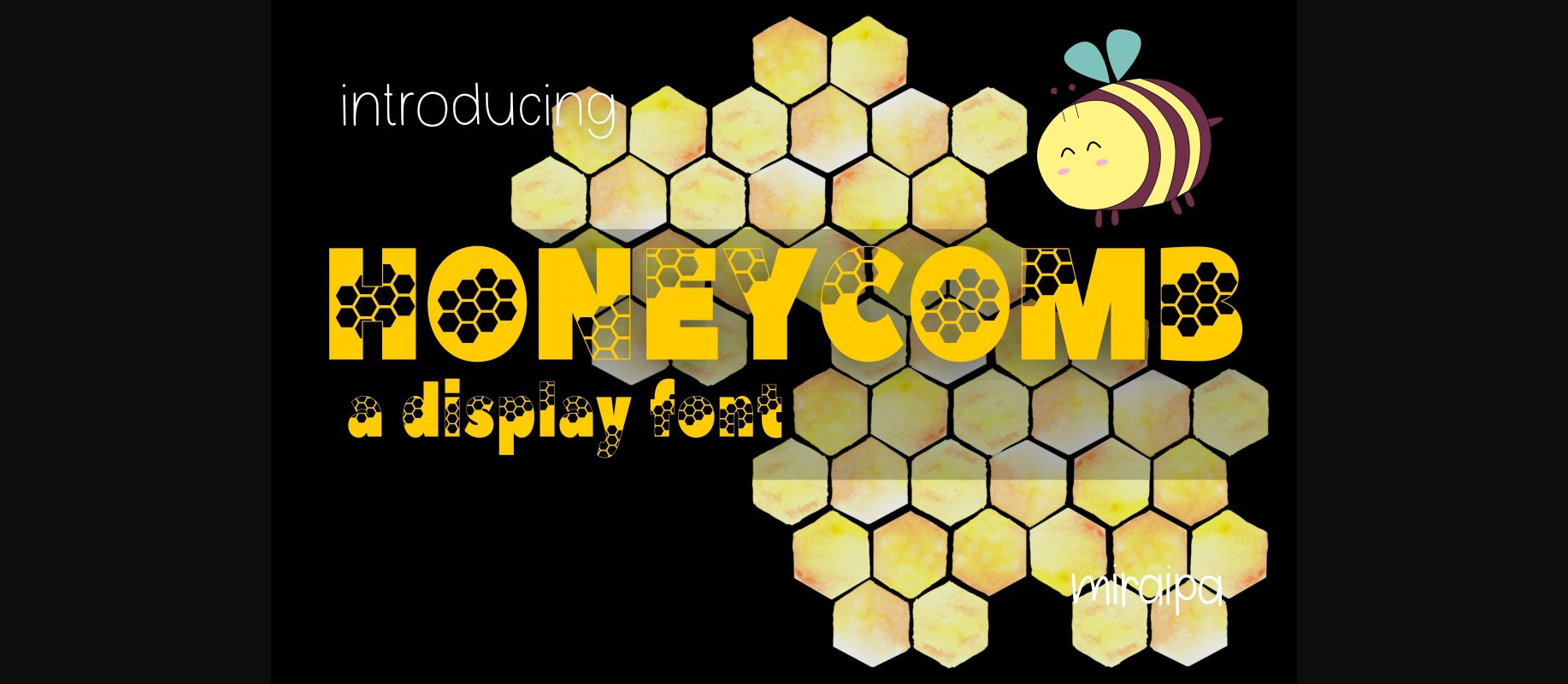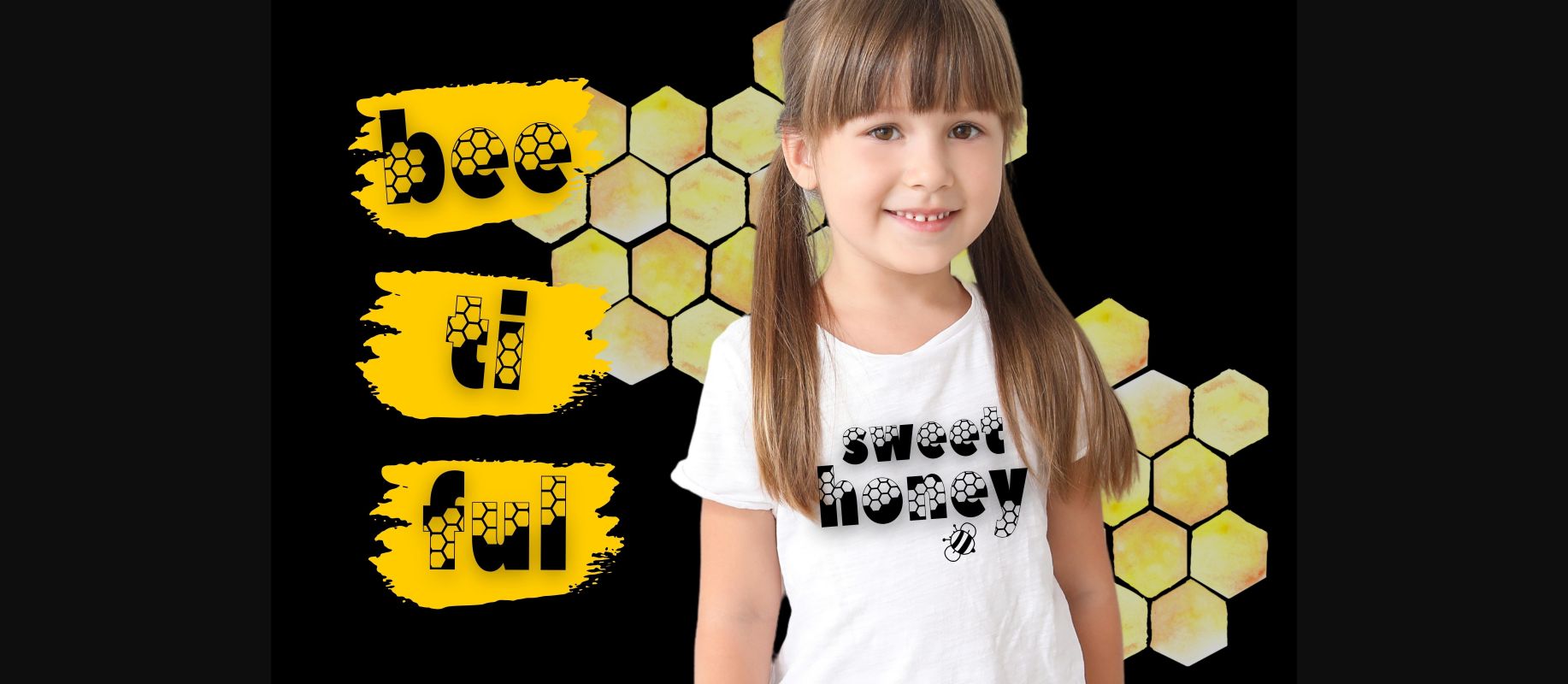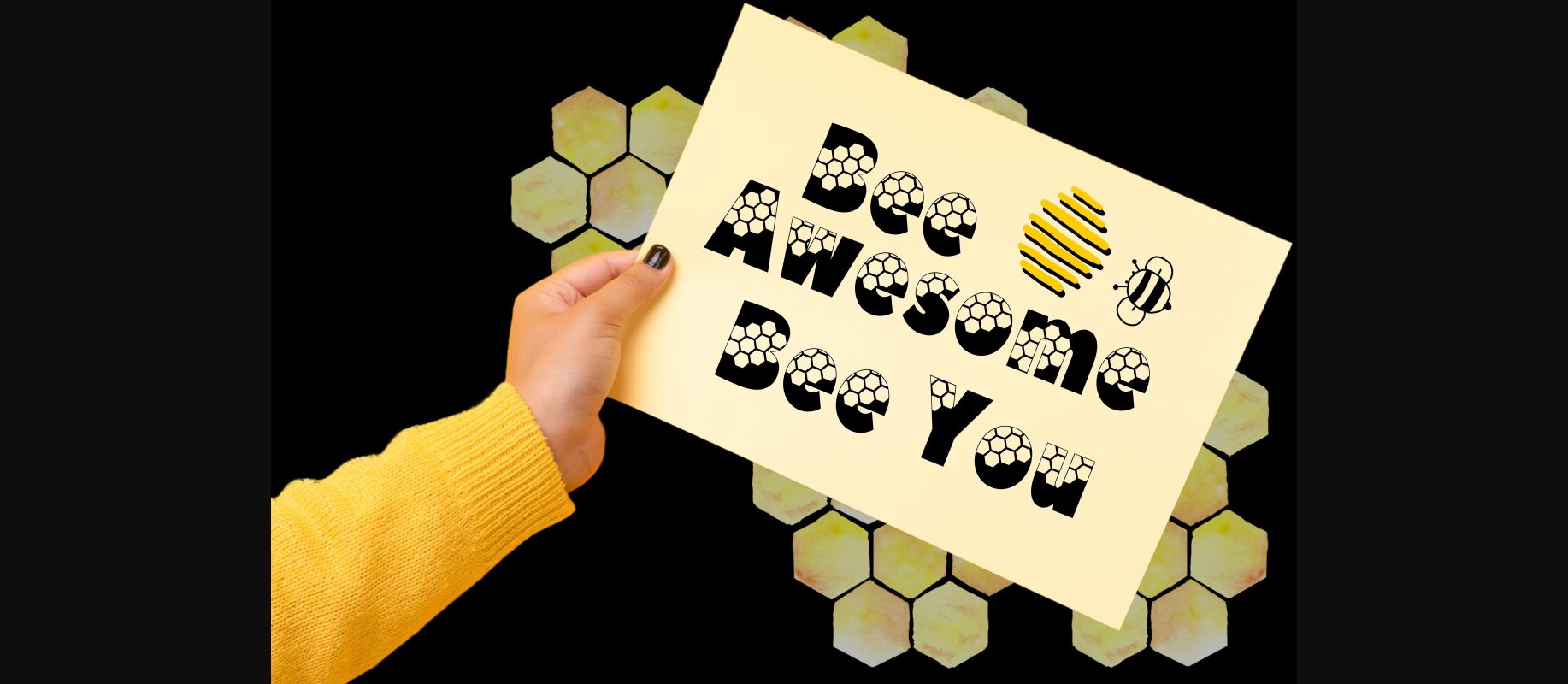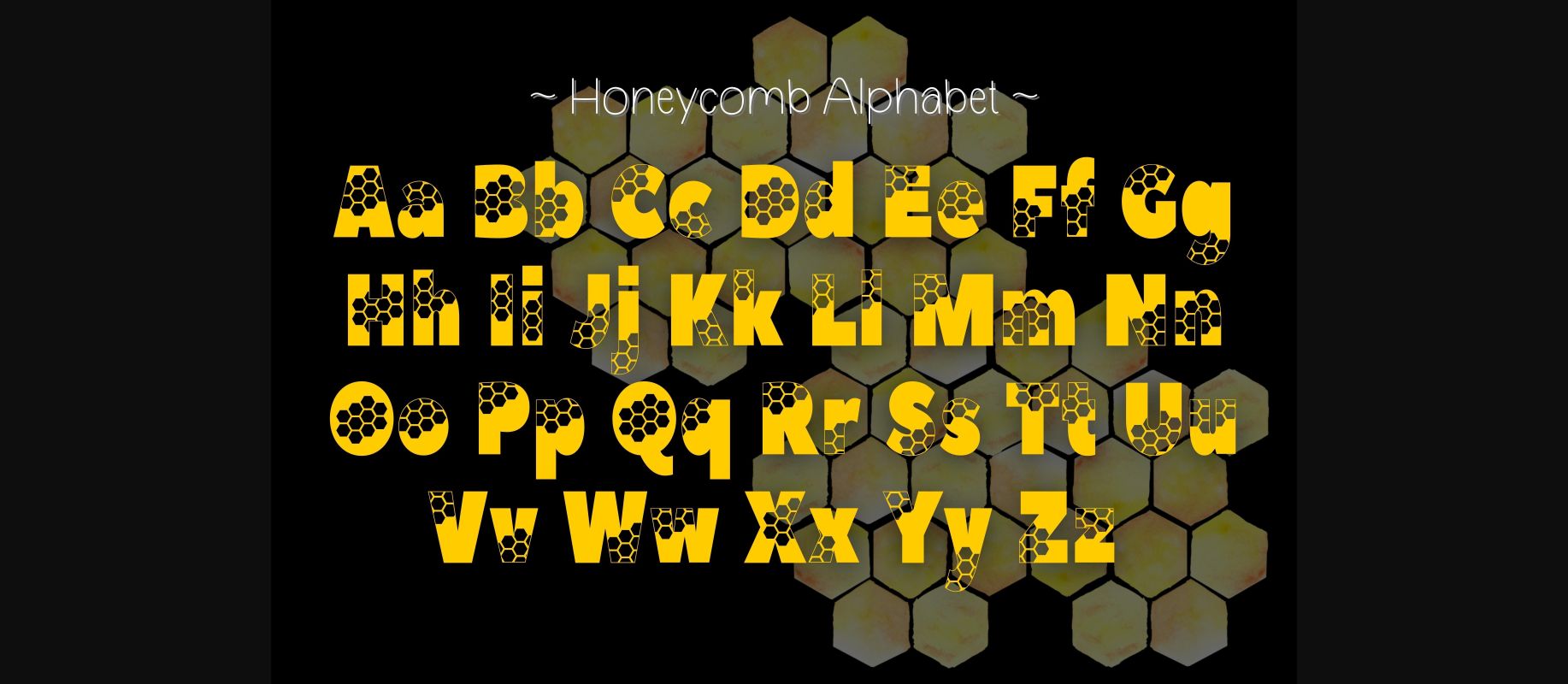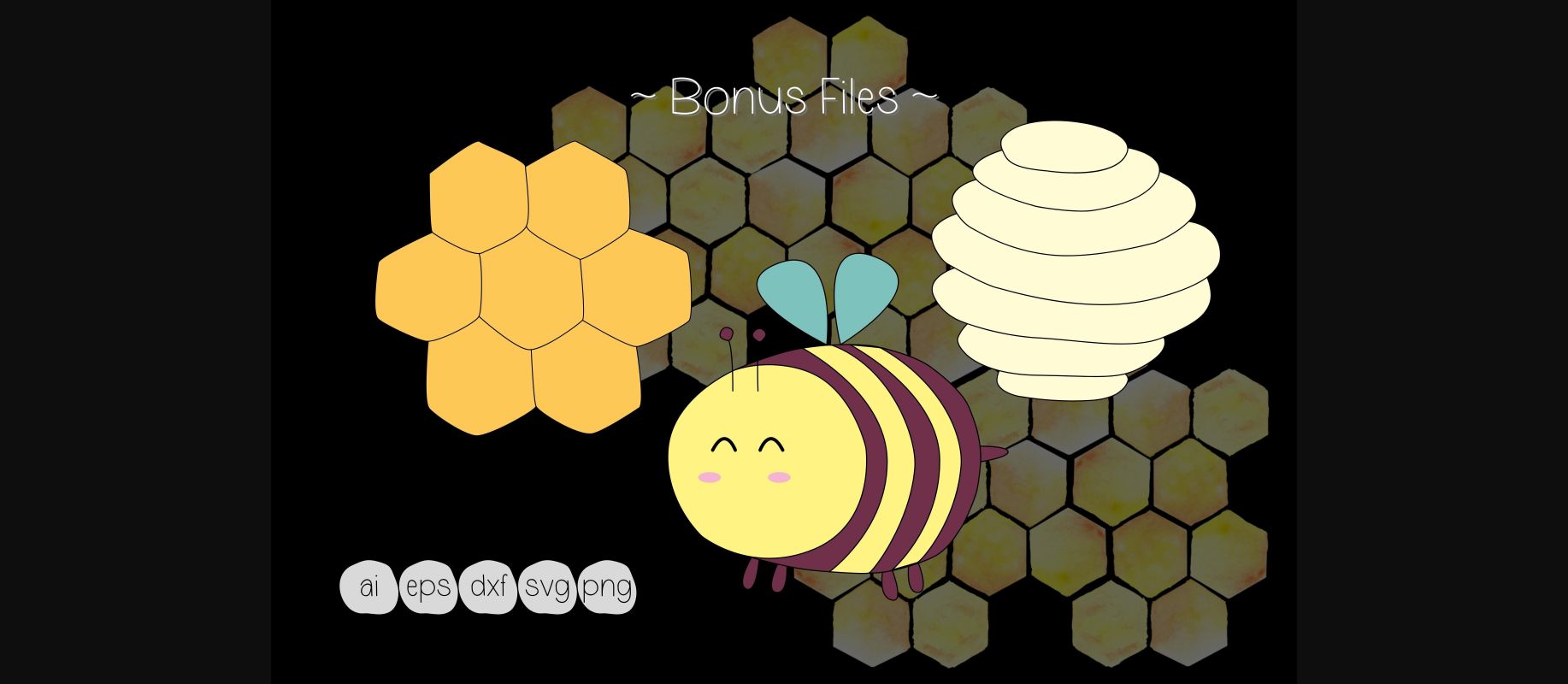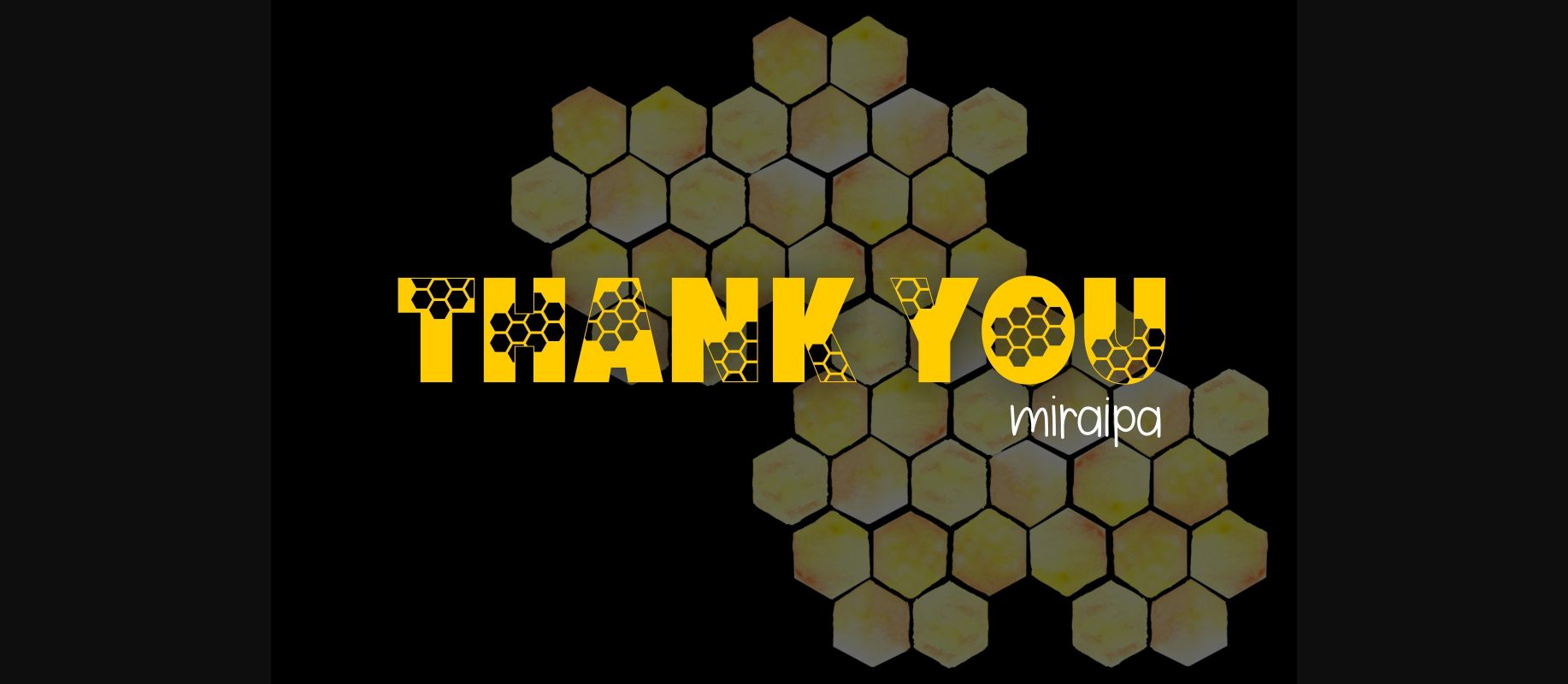
Honeycomb is a lovely and playful decorative font perfect for creative and lovely ideas. Fall in love with its sweet design and add it to your school, women, or child-related projects!